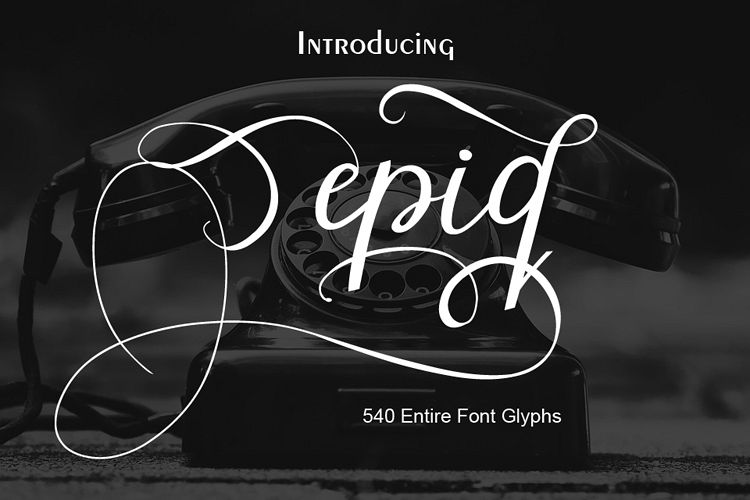
epiq
epiq is a modern calligraphy font with
the current handwriting style, this font is perfect for branding,
wedding invites, magazines, mugs, business cards, quotes, posters, and
etc
epiq fonts is equipped with 540 glyphs. and
by having many of these glyphs there will be able to choose the letters
according to your likes, lots of variations and options for each letter,
so you can customize on your design choices.